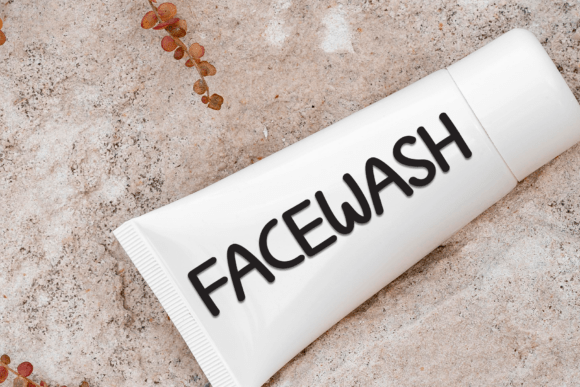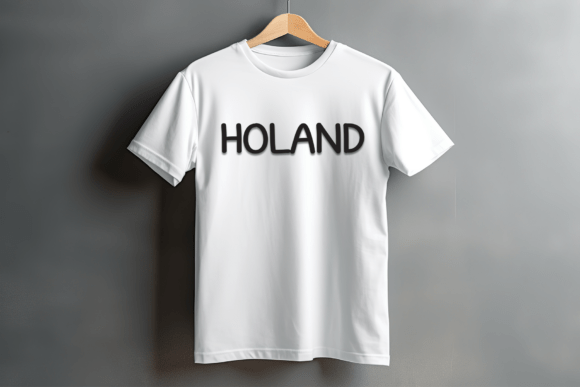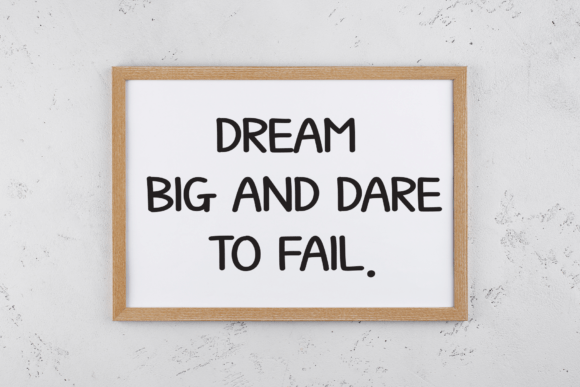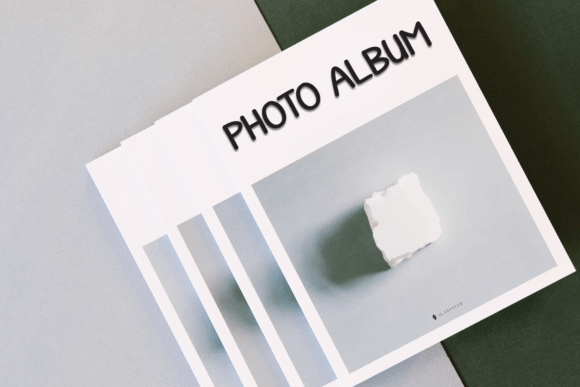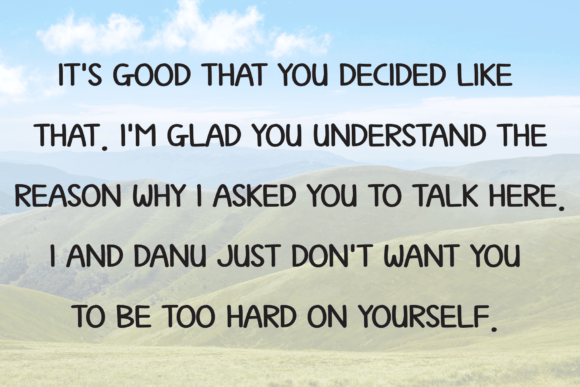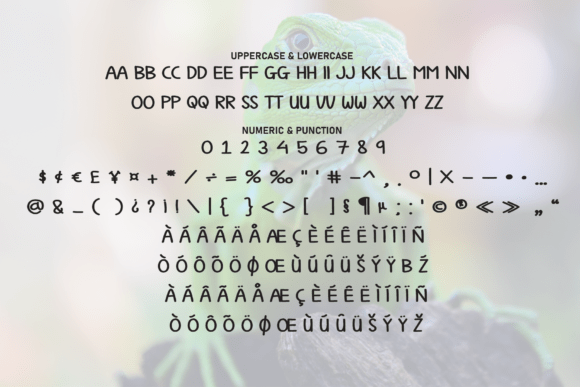
Introducing Animal Font: The Perfect Blend of Warmth and Clarity
In the world of typography, fonts play a crucial role in conveying messages, evoking emotions, and creating a lasting impression. For designers, crafters, and marketers, finding the right font can be a daunting task. However, if you’re looking for a font that embodies warmth, clarity, and approachability, look no further than Animal Font. In this article, we’ll dive into the features, benefits, and uses of Animal Font, and explore how it can elevate your projects to the next level.
What is Animal Font?
Animal Font is a casual and neat display font designed to bring warmth and clarity to your projects. With its clean structure and approachable style, it suits branding, headlines, and everyday designs. The balanced letterforms offer readability and charm, making every message feel genuine and inviting. Whether you’re working on a logo, brochure, or social media post, Animal Font is the perfect choice for designers and crafters seeking a font that exudes friendliness and approachability.
Key Features of Animal Font
- Clean Structure: Animal Font boasts a clean and organized structure, making it easy to read and understand.
- Approachable Style: The font’s approachable style makes it perfect for designs that require a friendly and inviting tone.
- Balanced Letterforms: The balanced letterforms ensure that every message feels genuine and harmonious.
- Readability: Animal Font offers excellent readability, making it suitable for a wide range of applications, from headlines to body text.
- Charm: The font’s charm lies in its ability to add a touch of warmth and personality to your designs.
Benefits of Using Animal Font
So, why choose Animal Font for your projects? Here are just a few benefits of using this versatile font:
- Enhances Brand Identity: Animal Font can help you create a consistent brand voice and visual identity that resonates with your audience.
- Increases Readability: The font’s excellent readability ensures that your message gets across clearly and effectively.
- Adds Emotional Connection: Animal Font’s warm and inviting style helps create an emotional connection with your audience, making your message more relatable and memorable.
- Versatile: The font’s versatility makes it suitable for a wide range of applications, from print materials to digital designs.
Uses of Animal Font
Animal Font is a versatile font that can be used in various design projects, including:
- Branding: Use Animal Font to create a consistent brand voice and visual identity.
- Headlines: The font’s bold and playful style makes it perfect for headlines and titles.
- Posters and Flyers: Animal Font is ideal for posters and flyers that require a clear and readable font.
- Social Media: Use Animal Font to create engaging social media posts that grab attention and convey your message.
- Packaging: The font’s clean and approachable style makes it suitable for packaging designs that require a friendly and inviting tone.
Tips for Using Animal Font Effectively
To get the most out of Animal Font, here are some tips to keep in mind:
- Pair with Other Fonts: Experiment with pairing Animal Font with other fonts to create a unique and visually appealing design.
- Use Contrast: Use contrast to make your text stand out, especially when using Animal Font for headlines or titles.
- Keep it Simple: Don’t overcomplicate your design – keep it simple and clean to let Animal Font shine.
- Experiment with Colors: Try out different colors to find the perfect match for your design and brand identity.
Animal Font is a versatile and charming font that can elevate your designs to the next level. With its clean structure, approachable style, and balanced letterforms, it’s perfect for designers and crafters seeking a font that exudes warmth and clarity. Whether you’re working on a branding project, creating headlines, or designing social media posts, Animal Font is an excellent choice. So why not give it a try and see how it can bring warmth and clarity to your projects?